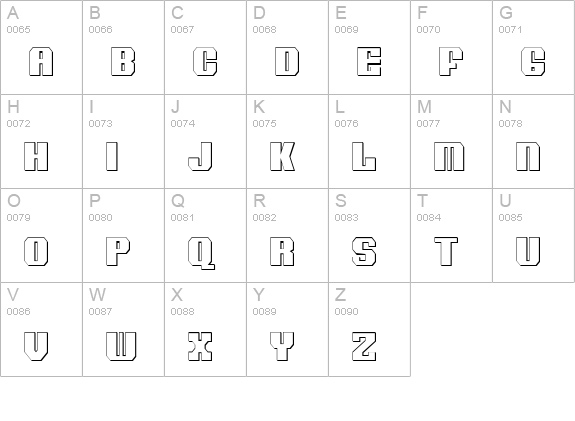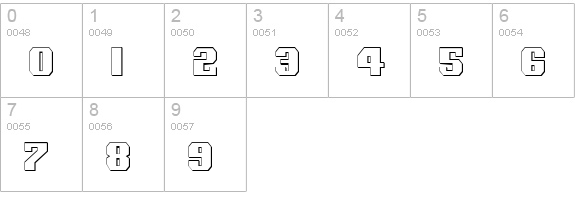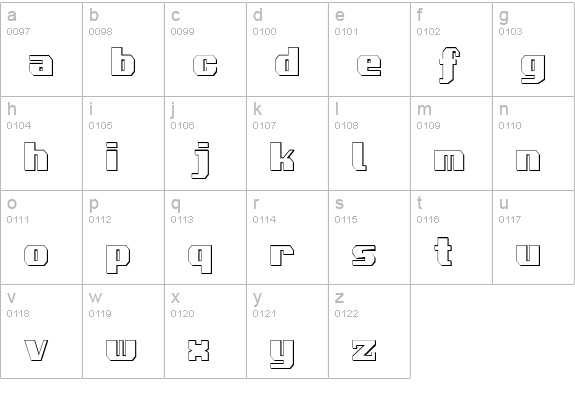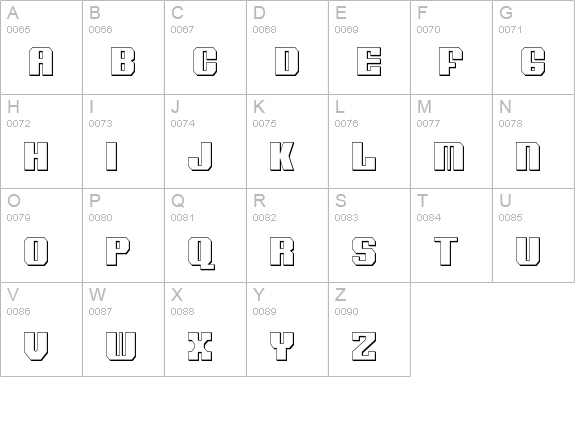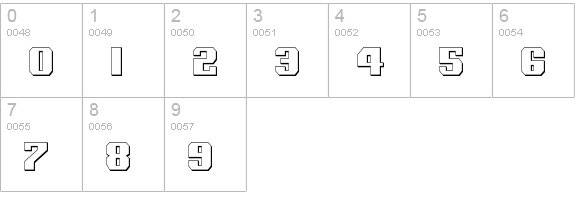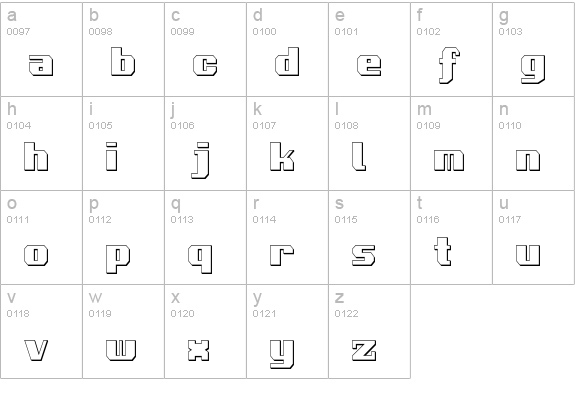
Voortrekker 3D Condensed is a distinctive, condensed-width variant in the Voortrekker typeface family \xE2\x80\x94 well suited to design and typography projects.